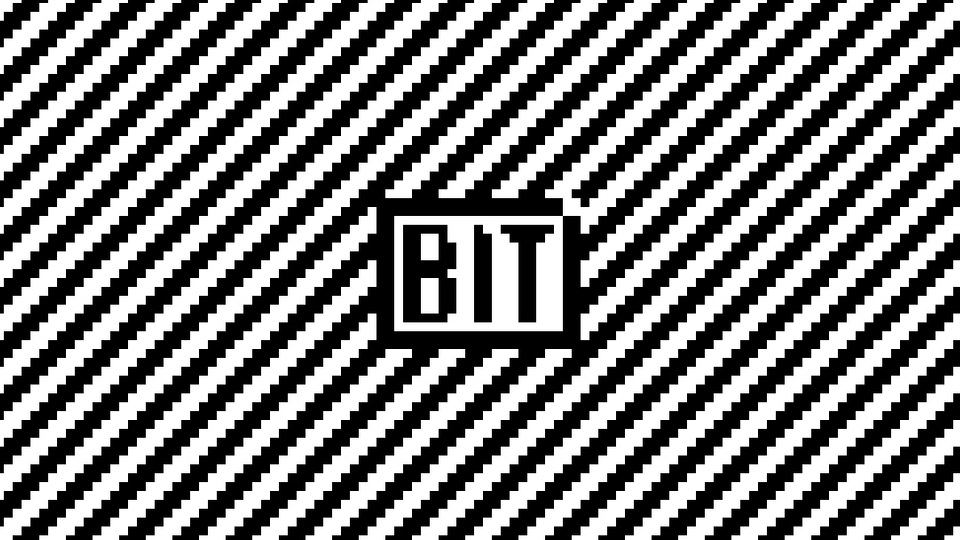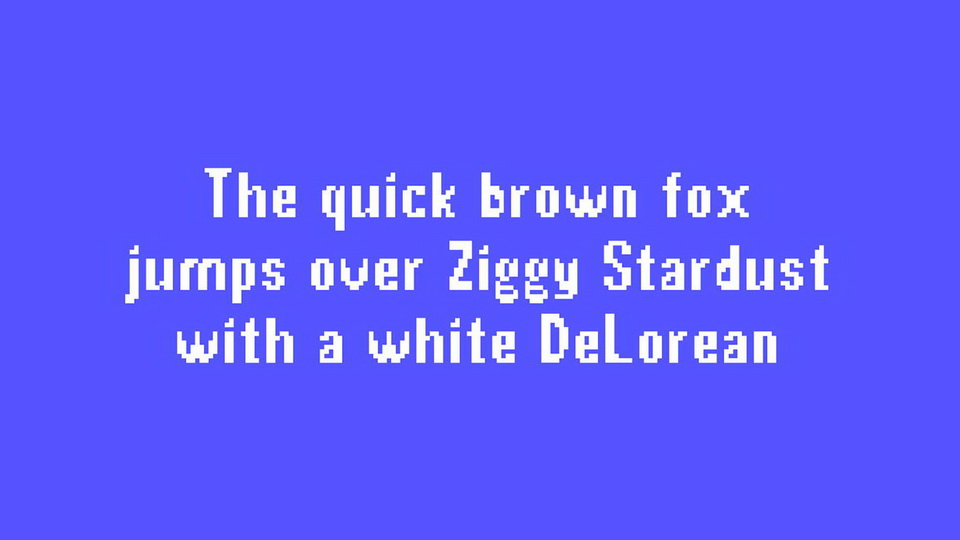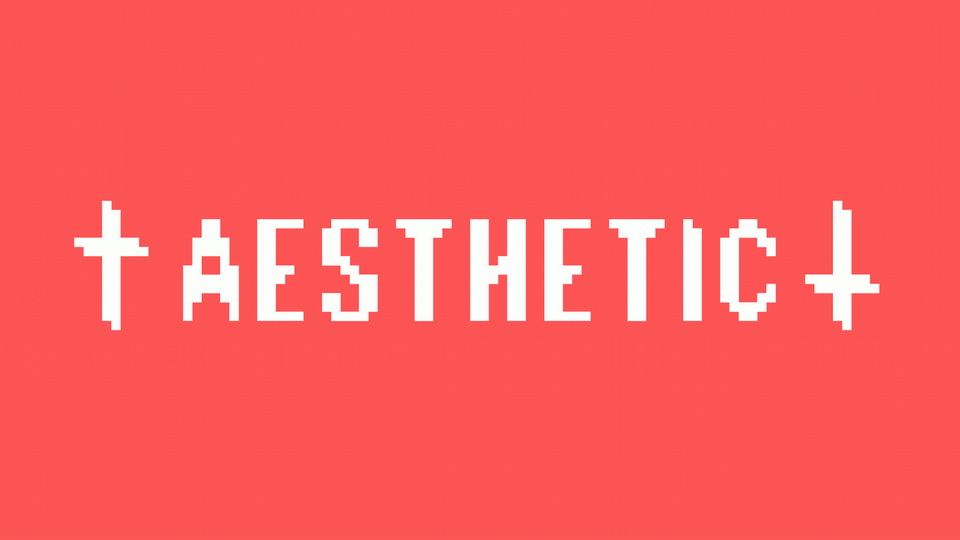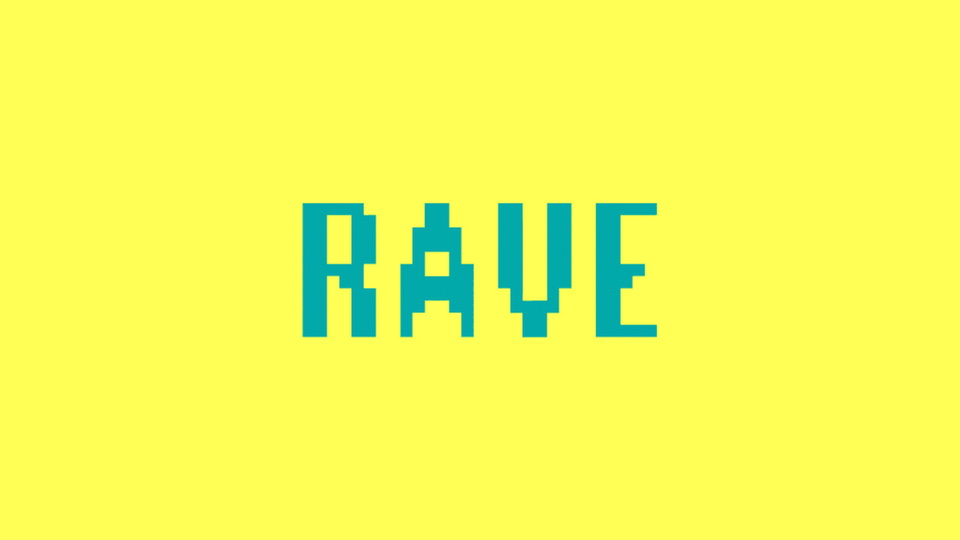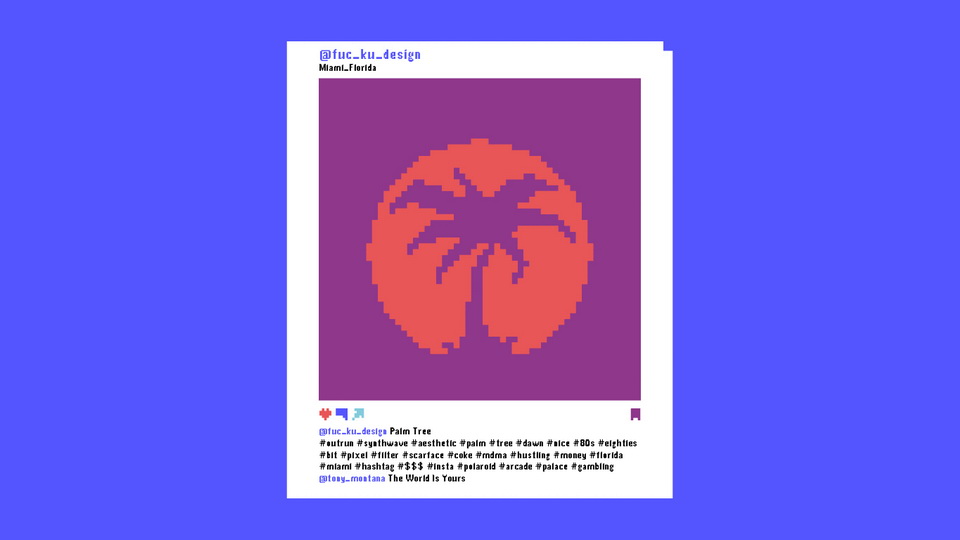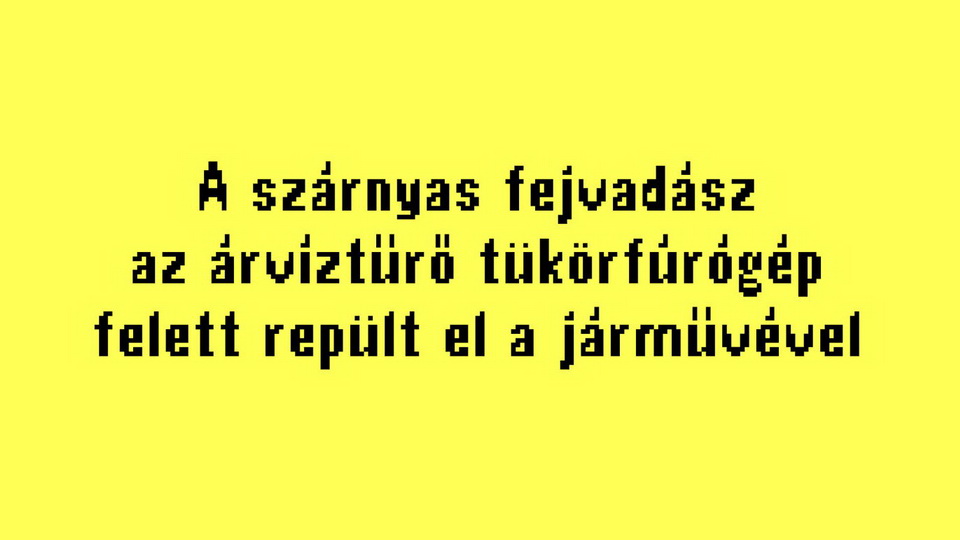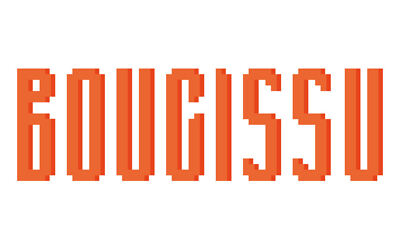
Bit is a pixel typeface inspired by the style “outrun” and “aesthetic”. The main idea behind the typeface is to combine the style of 80’s with futuristic elements. Using the pixels to create a clean but still very characteristic typeface.